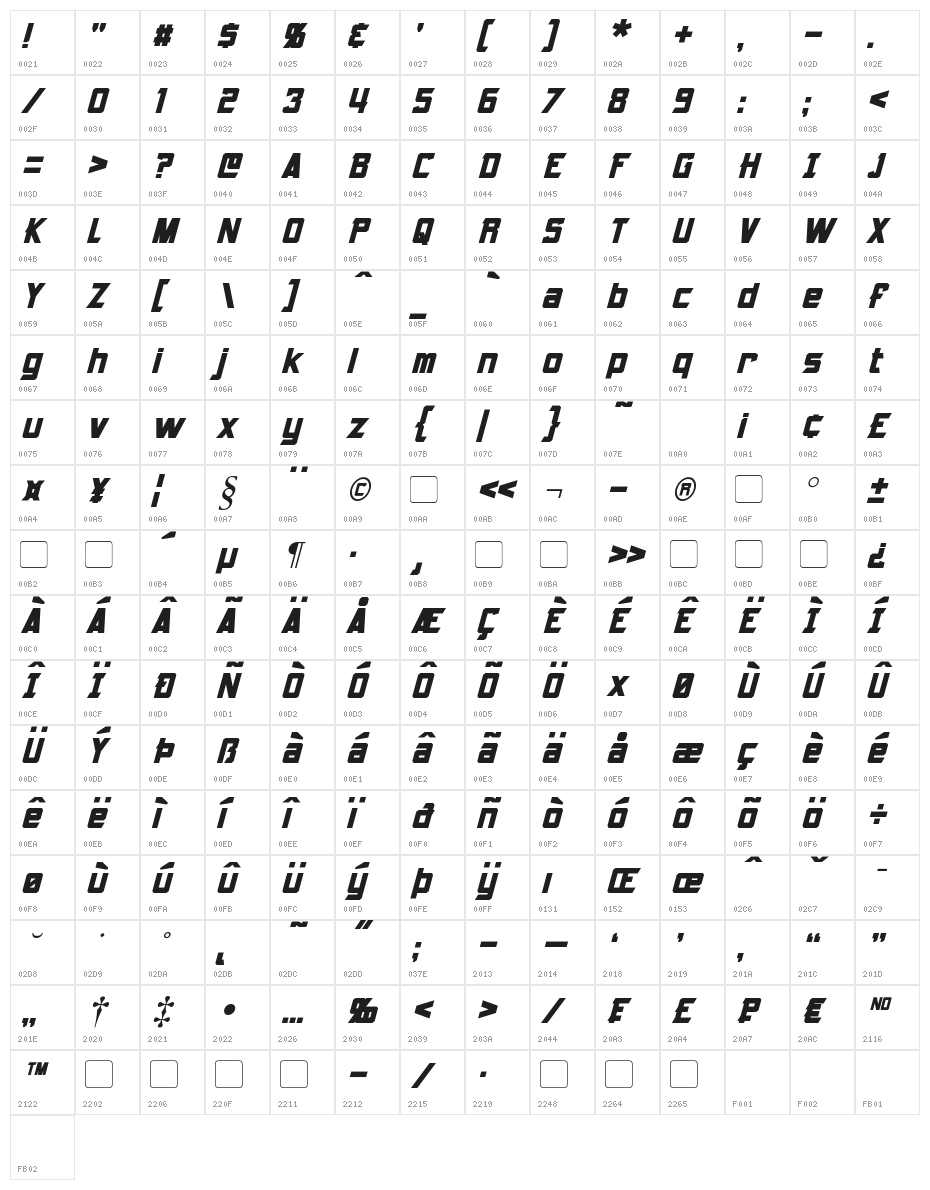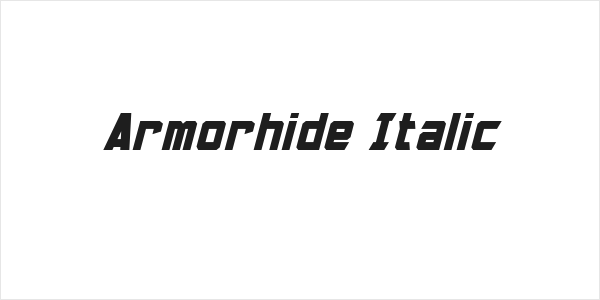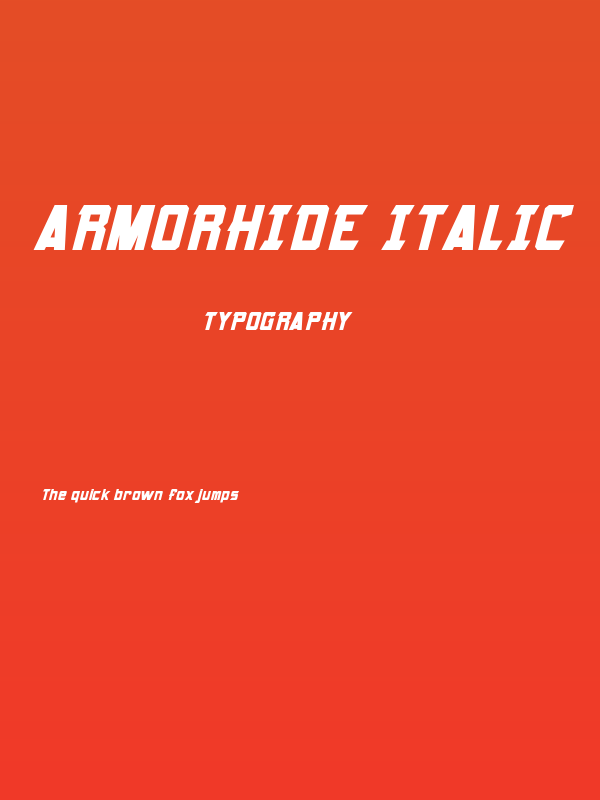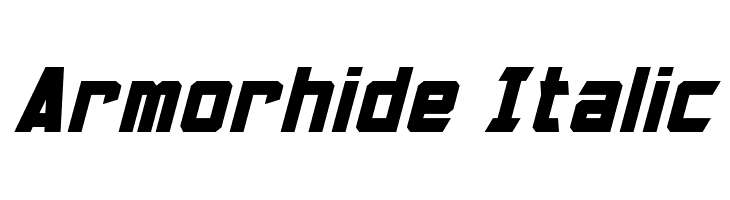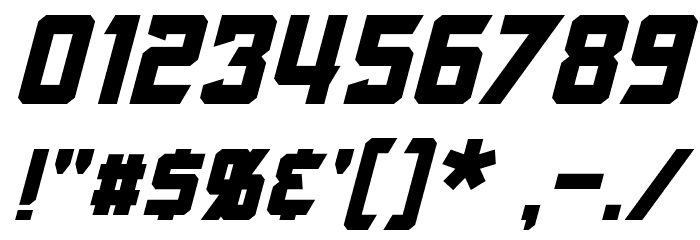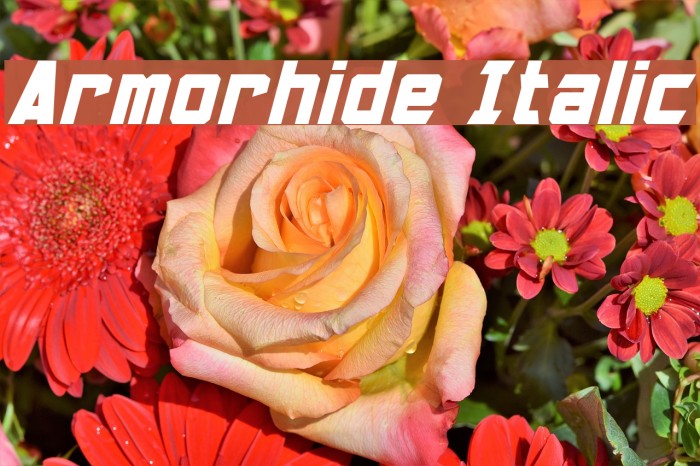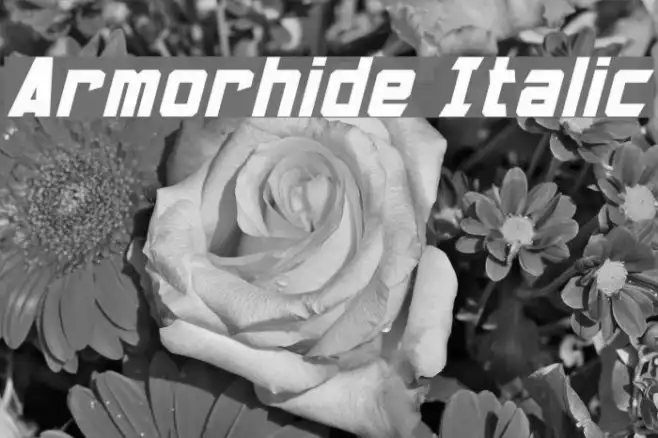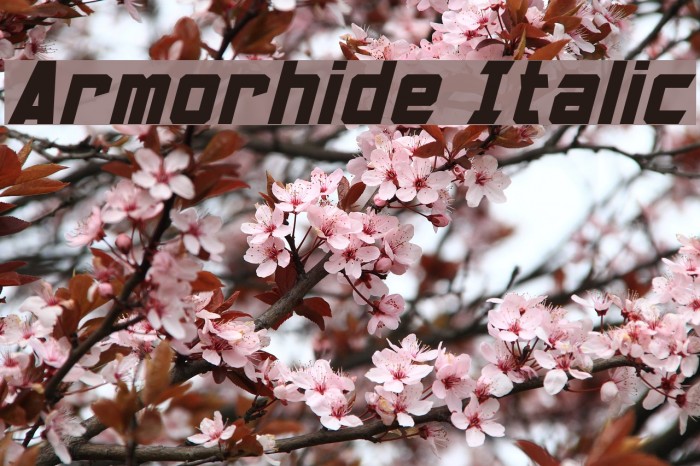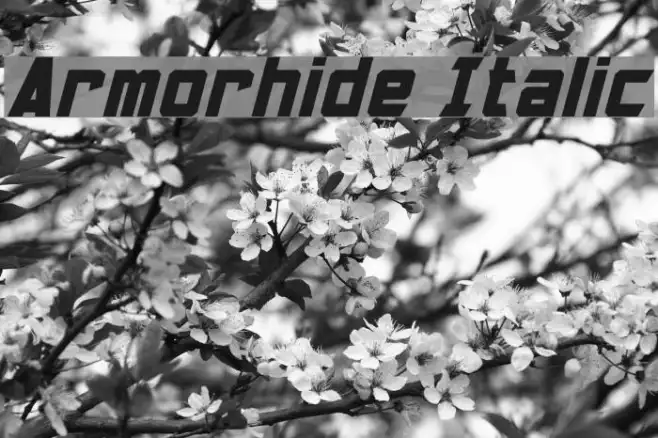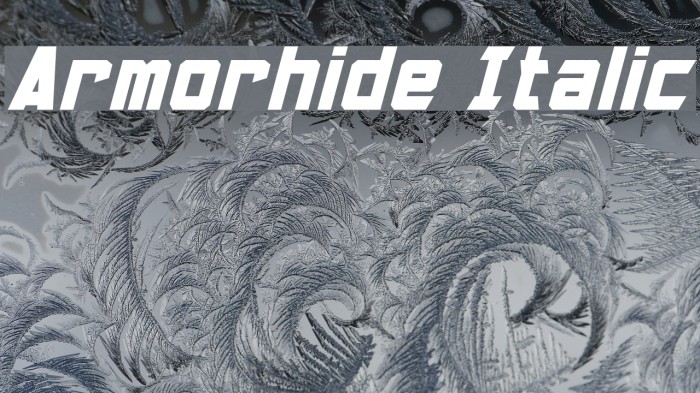
Armorhide Italic Font
Armorhide Italic Description
This font features a bold, italicized style with a strong, angular design. The characters are sharply defined, giving a sense of strength and modernity. The uppercase and lowercase letters maintain a consistent slant, enhancing the italic effect. Numbers and special characters follow the same angular and bold aesthetic, ensuring uniformity across all glyphs. The font's design is reminiscent of futuristic or industrial themes, making it suitable for projects that require a strong visual impact.
| Proposed Projects | Ideal for branding, sports team logos, video game titles, and any project needing a bold, modern look. |